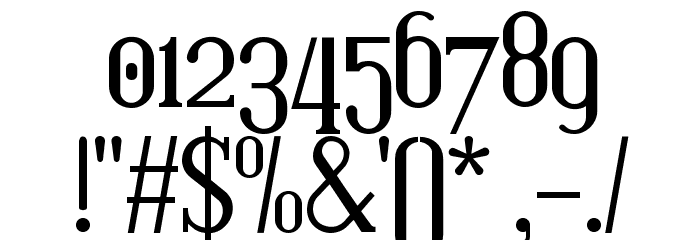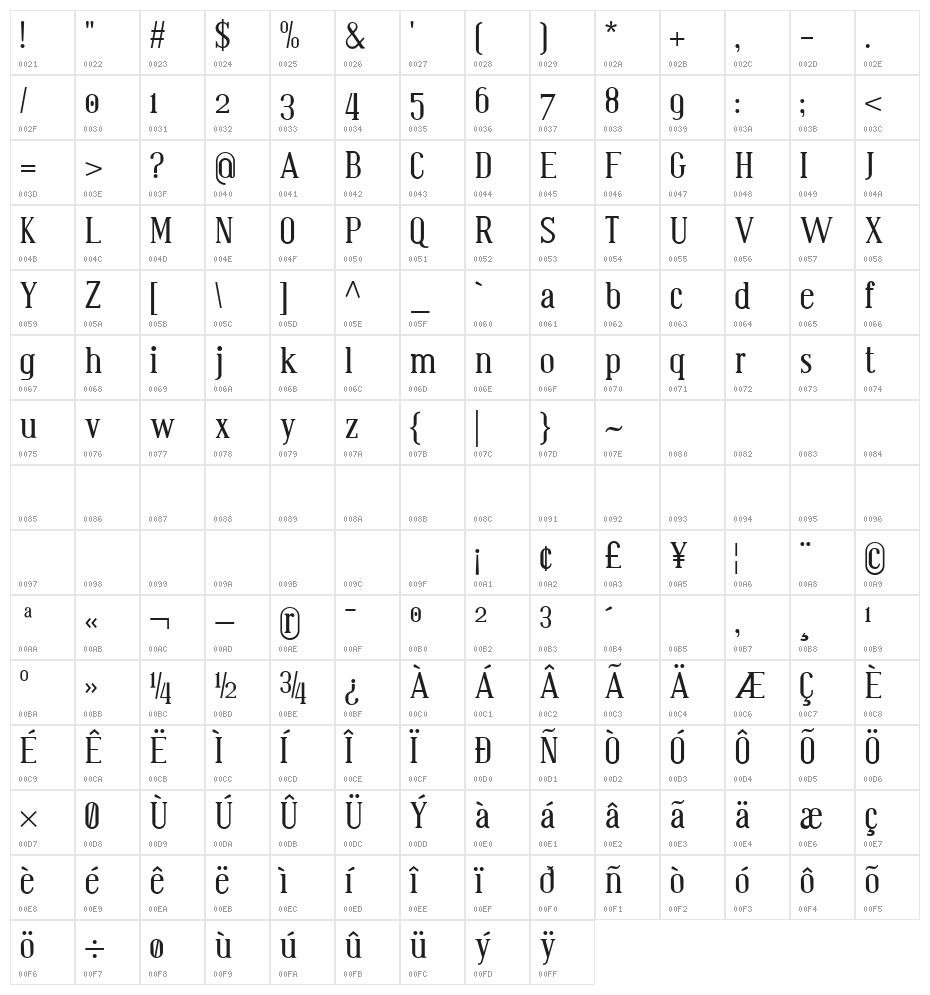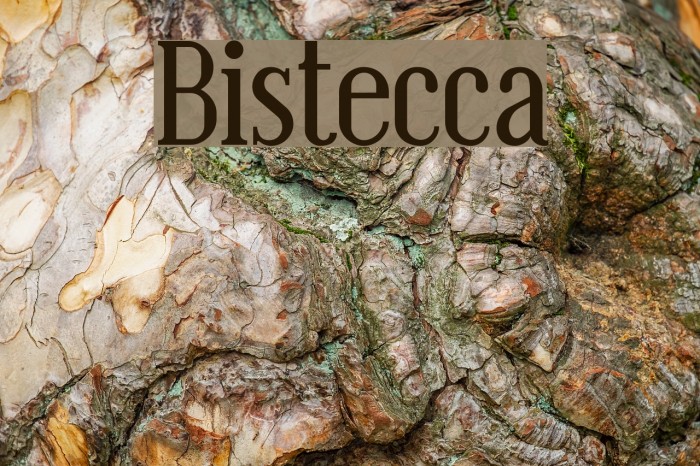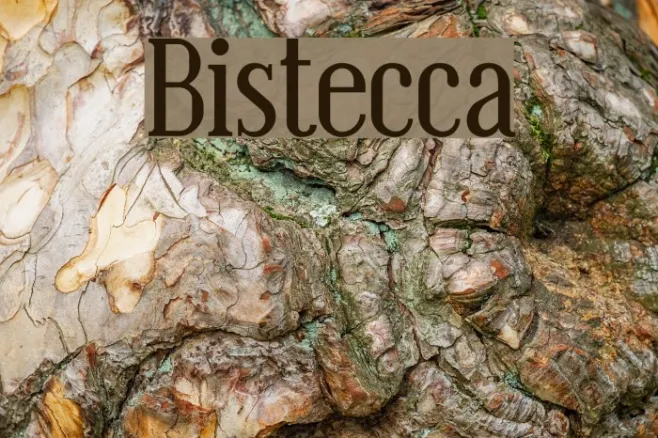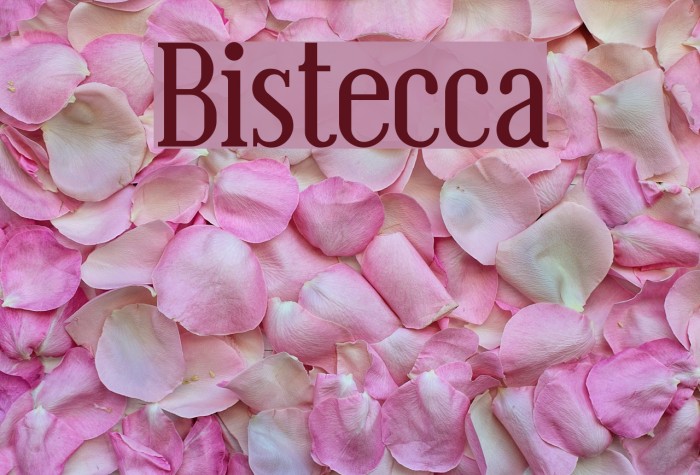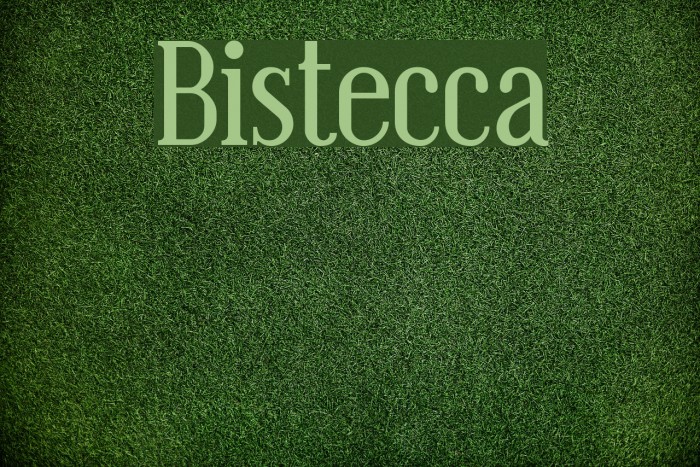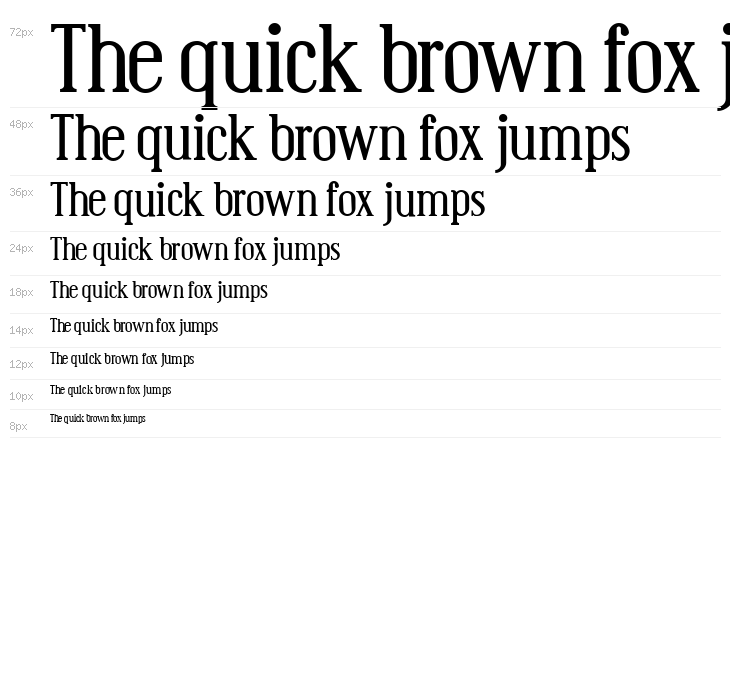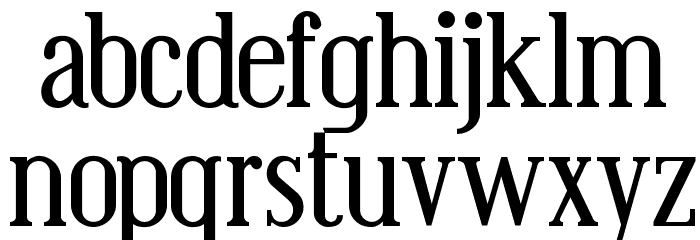
Bistecca Font
Bistecca Description
This font features a distinctive blend of modern and classic elements, characterized by its tall, narrow letterforms and subtle serifs. The uppercase letters are bold and commanding, while the lowercase letters maintain a more refined and elegant appearance. The numerals are consistent with the overall style, offering a clean and readable design. Special characters are well-integrated, maintaining the font's cohesive aesthetic. The font's high contrast between thick and thin strokes adds a dynamic quality, making it suitable for a variety of applications.
| Proposed Projects | Ideal for editorial design, branding, and advertising where a sophisticated yet modern look is desired. |